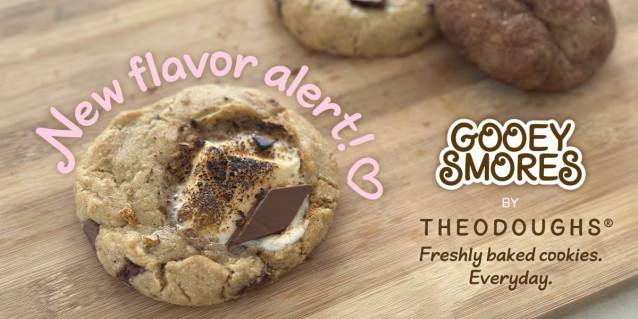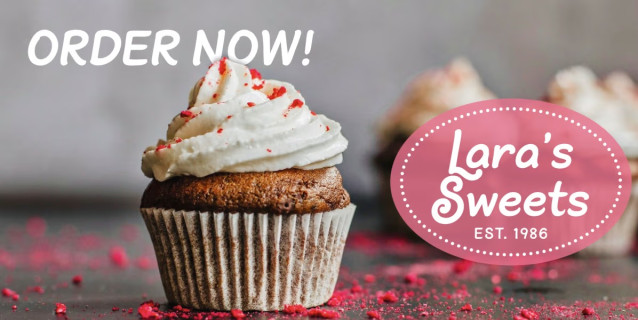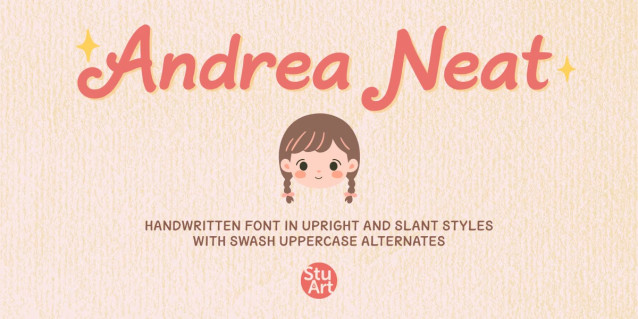
Andrea Neat Font
Andrea Neat Font – An iteration of StuArt’s Andrea Handwriting series, Andrea Neat is, you guessed it, a neatened version of the earlier variants, available in upright and slant. It is also thicker in weight which makes it better suited for branding and other uses that call for more oomph! Charming, clean and easy on the eyes, it offers multilingual support and open type features like ligatures, swash alternates for all uppercase characters, and stylistic alternates for some lowercase letters. Used in all caps, the font looks especially neater; in lowercase, it feels casual and fun. With the uppercase swash alternates, the versatility of this font is off the charts! Enjoy!